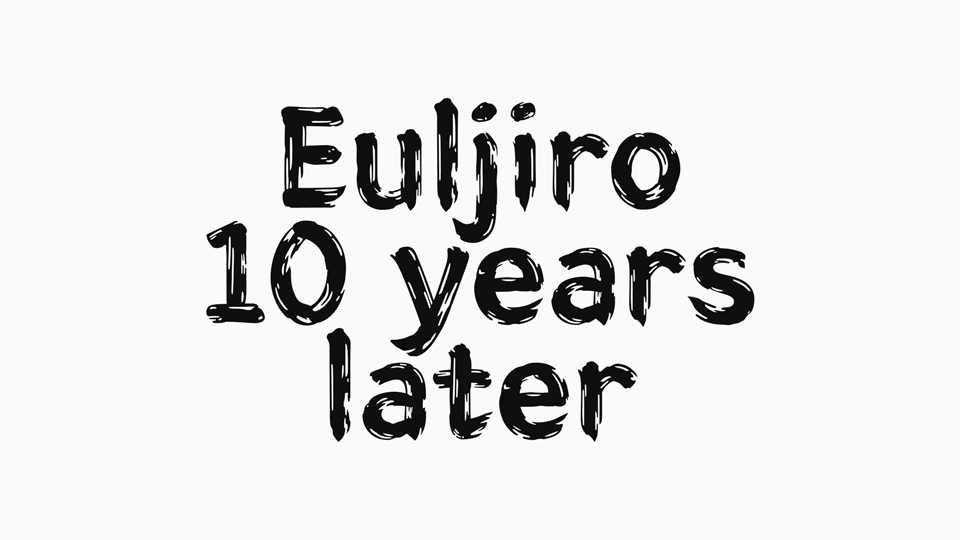
Download Euljiro 10 Years Later font, a typeface was created by imagining BM Euljiro font 10 years later. The traces of sunlight and rainstorms accumulated over a period of 10 years are embedded in the font.
Designer: Woowa Brothers